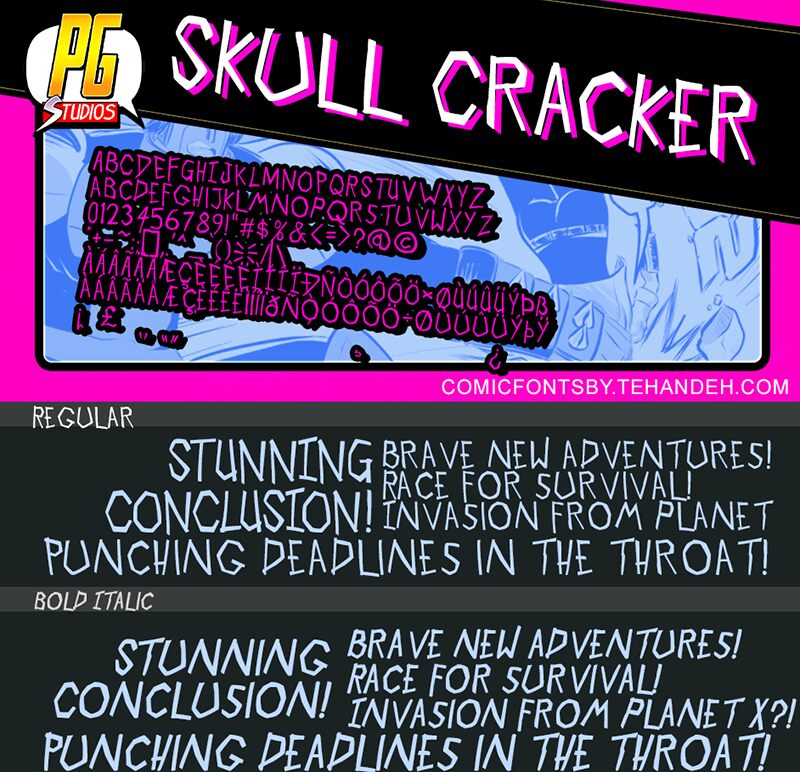
Skull Cracker Bold Italic
Skull Cracker Bold Italic font designed by PressGang Studios is a distinct display font with an edgy comic style. The detached feel of its characters adds to the irregular alignment of its gritty and angular forms. Skull Cracker Bold Italic creates unique projects that stand out with an instantly recognizable visual identity.
This free comic typeface works well for logos, event flyers, posters for impactful messages and eye-catching headlines. Get creative on website banners, social media ads, YouTube channels covers, packaging design, labels, book covers or album covers.